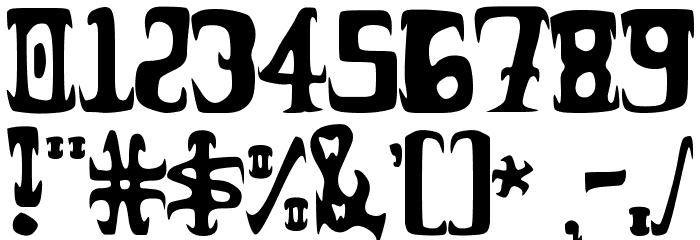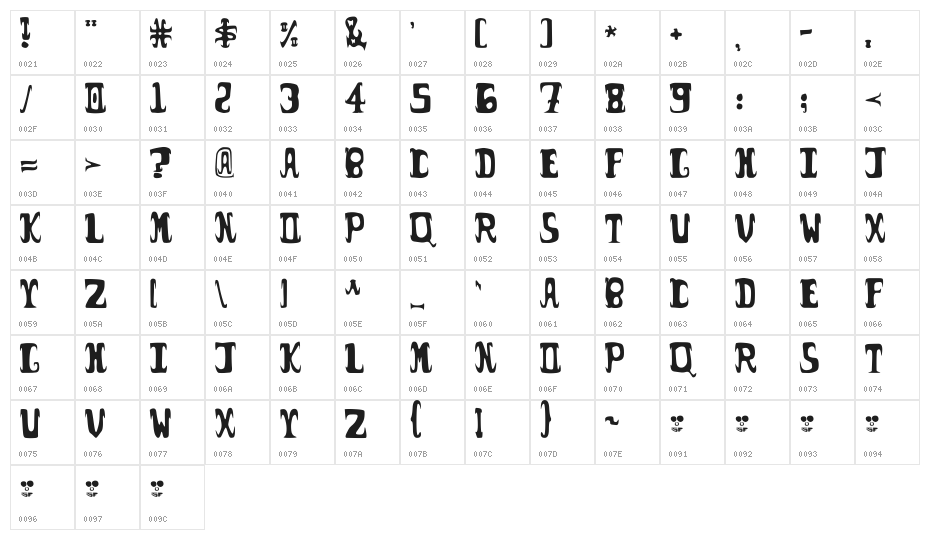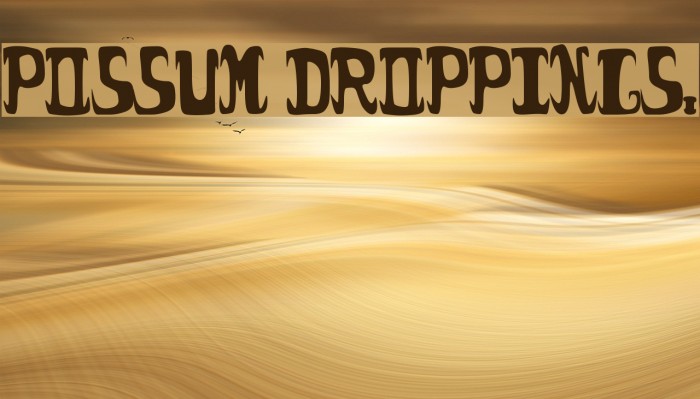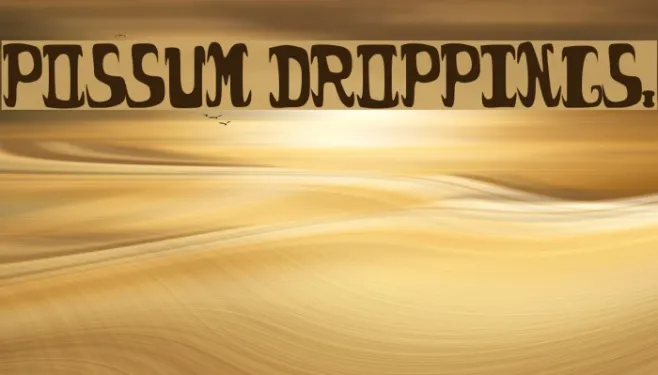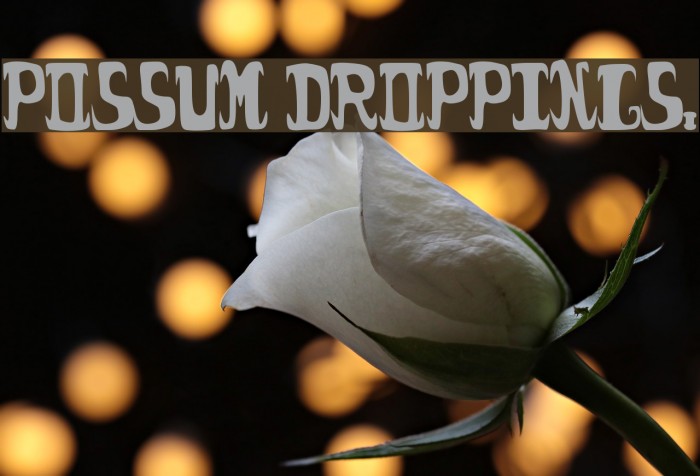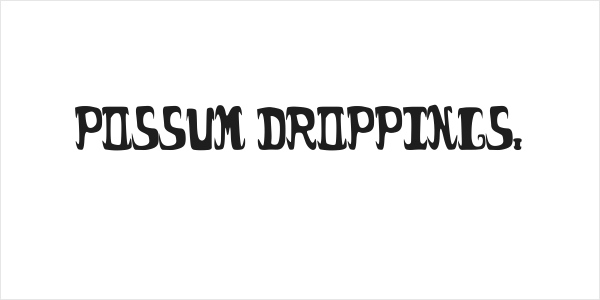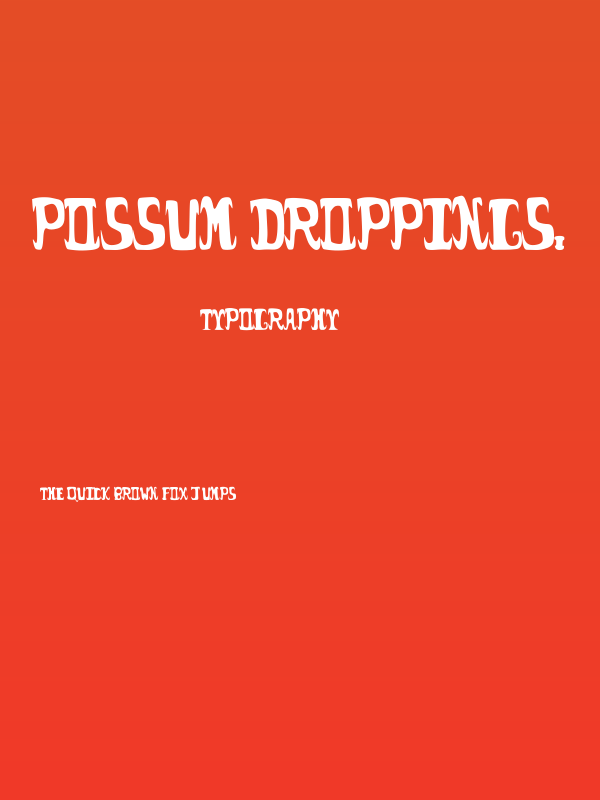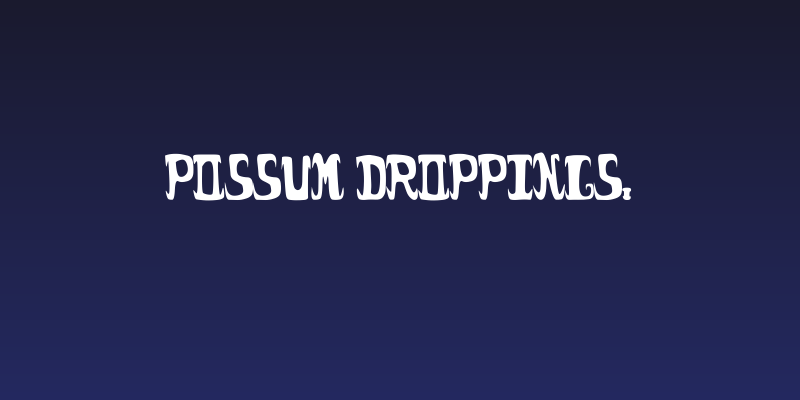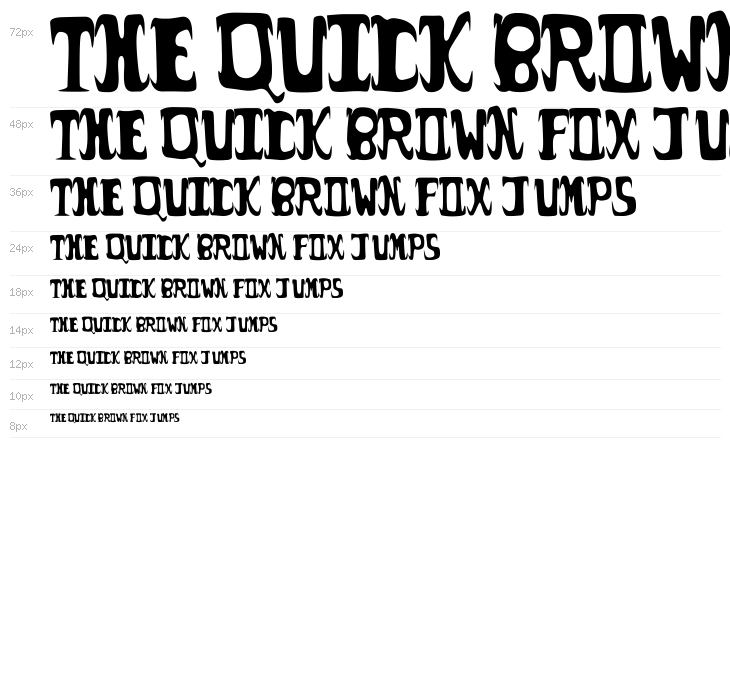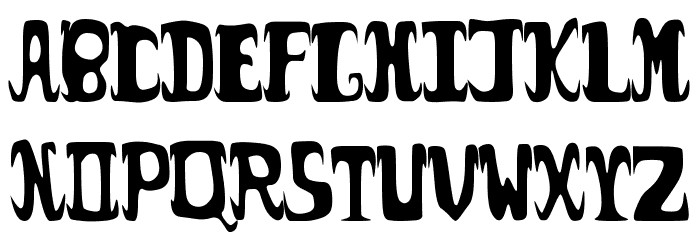
possum droppings. Font
possum droppings. Description
This font features a bold and playful design with exaggerated curves and a whimsical style. The characters are thick and have a strong presence, making them ideal for attention-grabbing designs. The uppercase letters are uniform in height, while the lowercase letters maintain a consistent style with slight variations in size. Numbers are equally bold, with a quirky flair that matches the overall aesthetic. Special characters are creatively designed, adding to the font's unique personality. The font's playful nature makes it suitable for creative and informal projects.
| Overall Style | Playful, Whimsical |
| Proposed Projects | Ideal for posters, children's books, playful branding, and creative projects. |